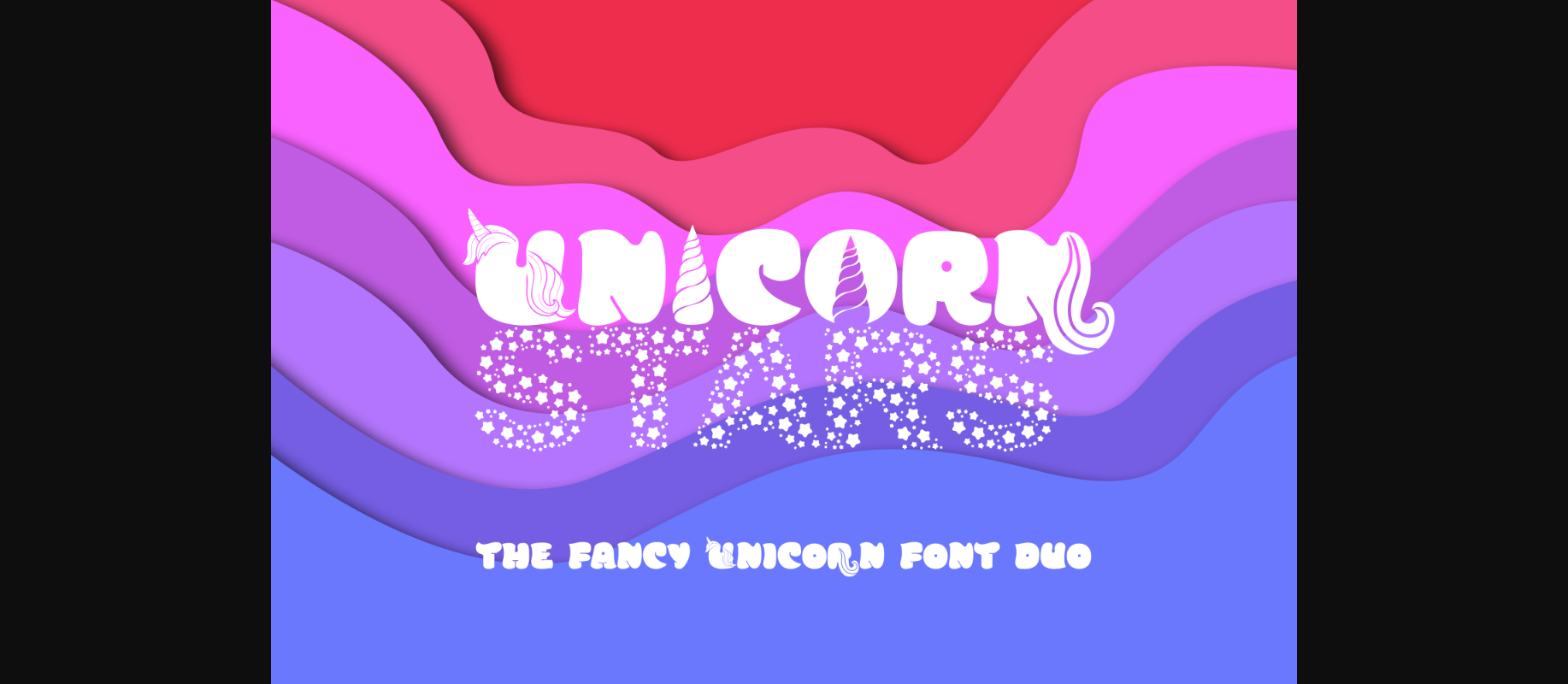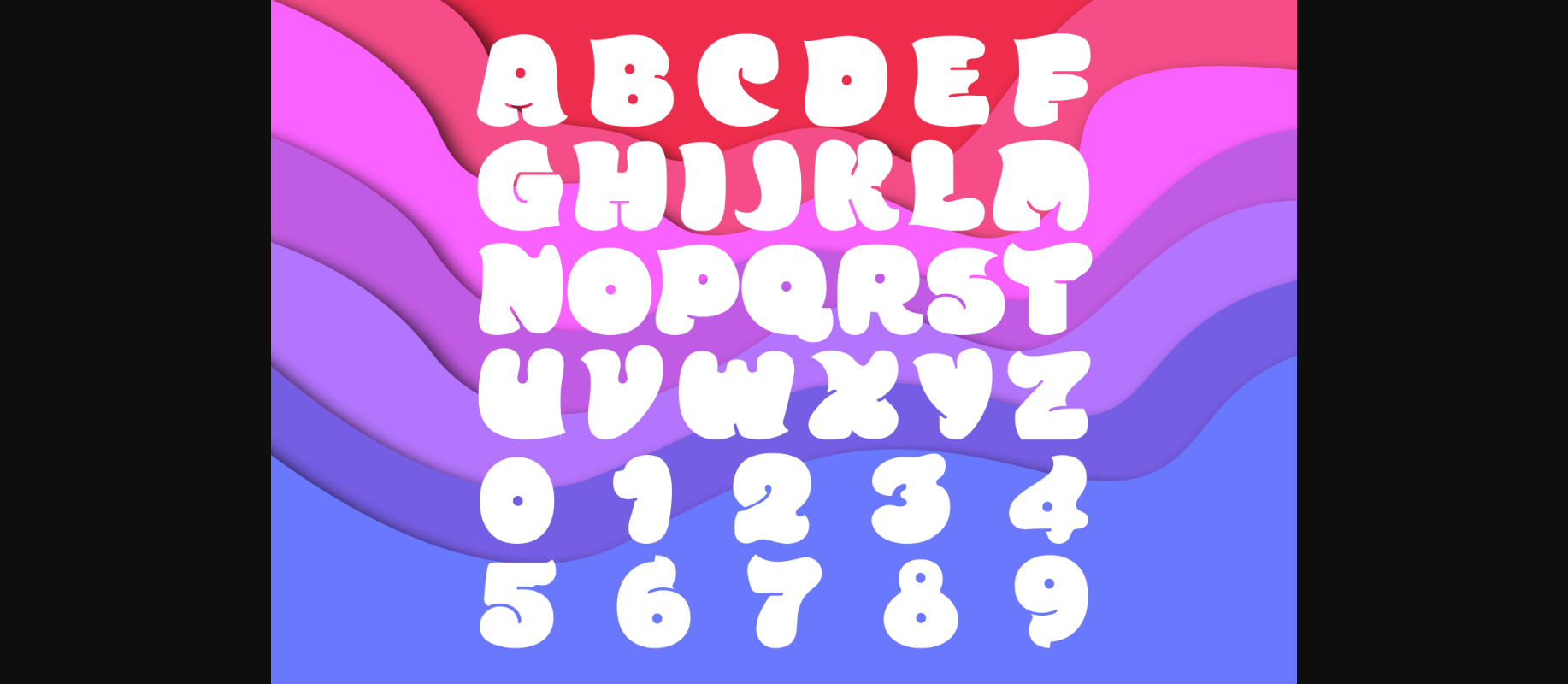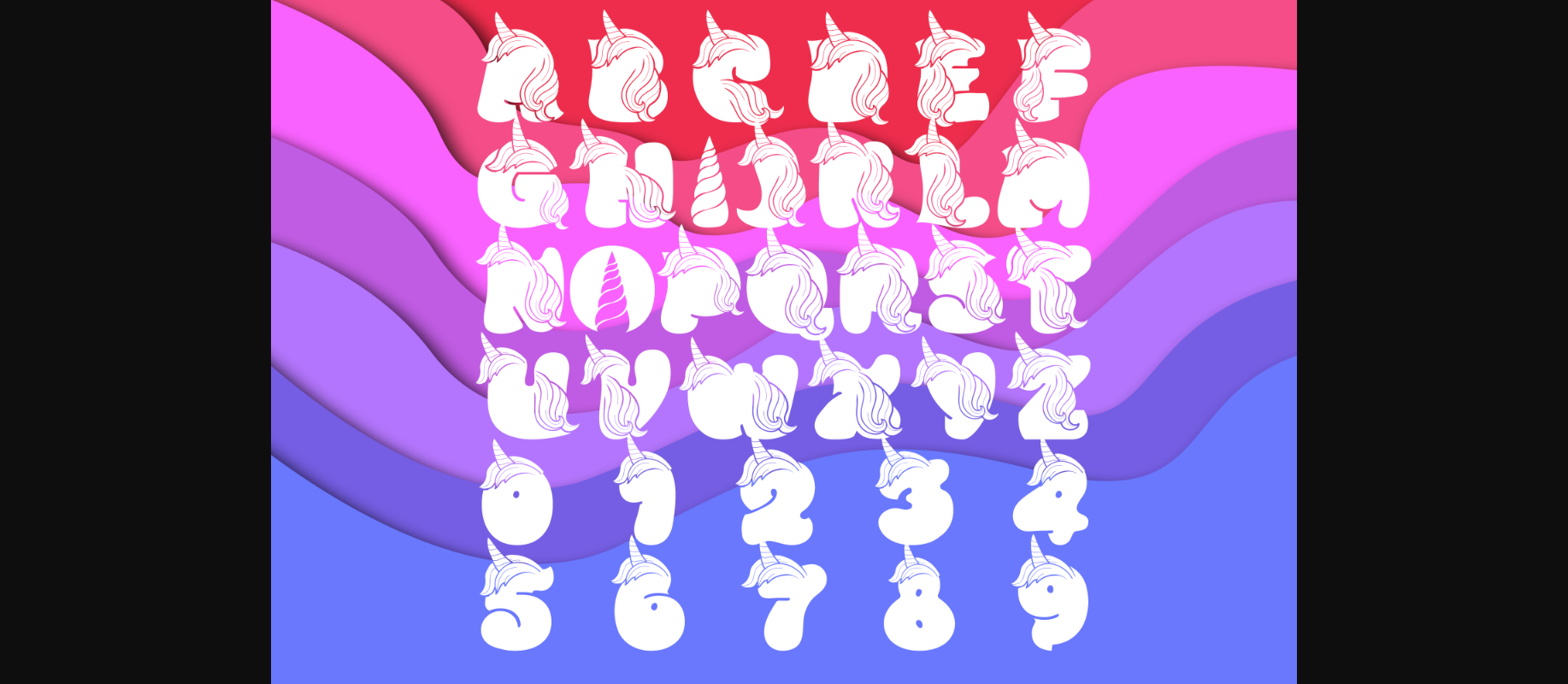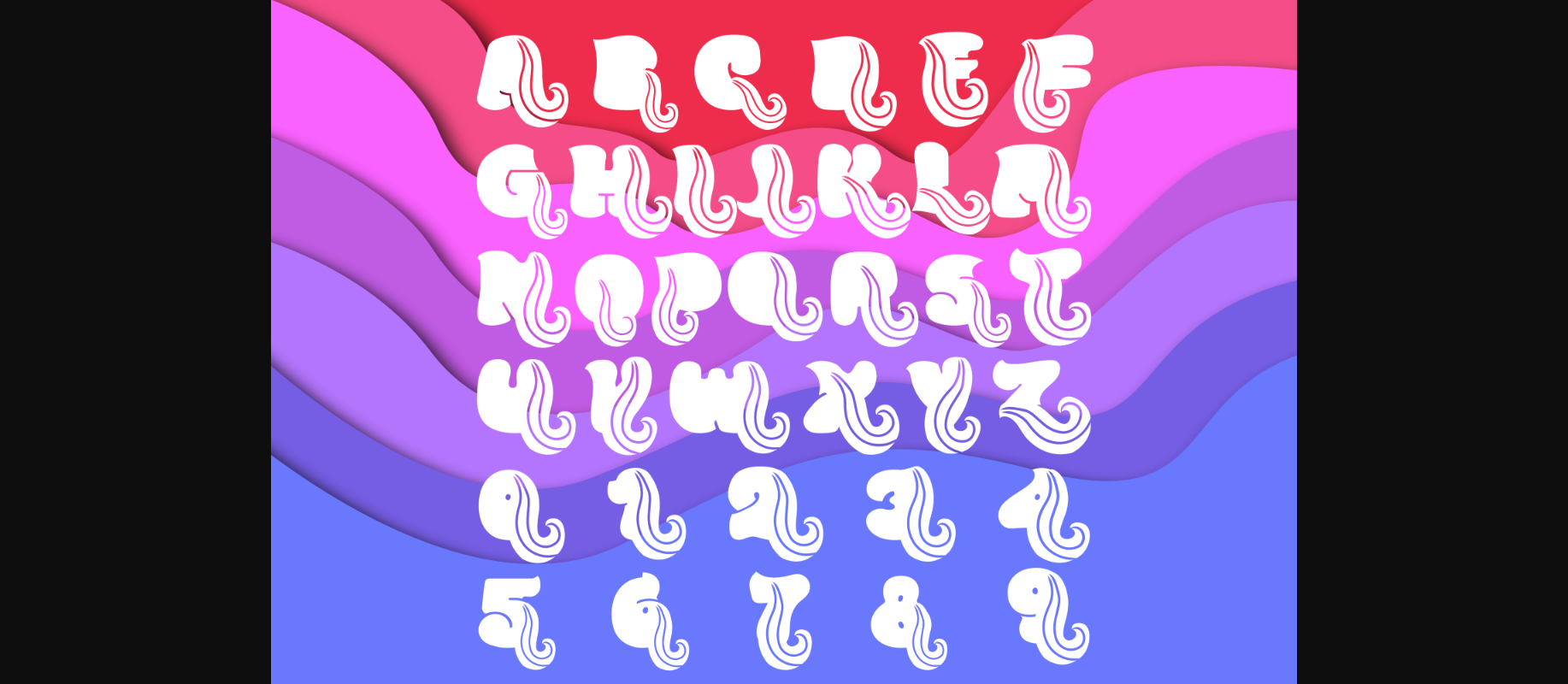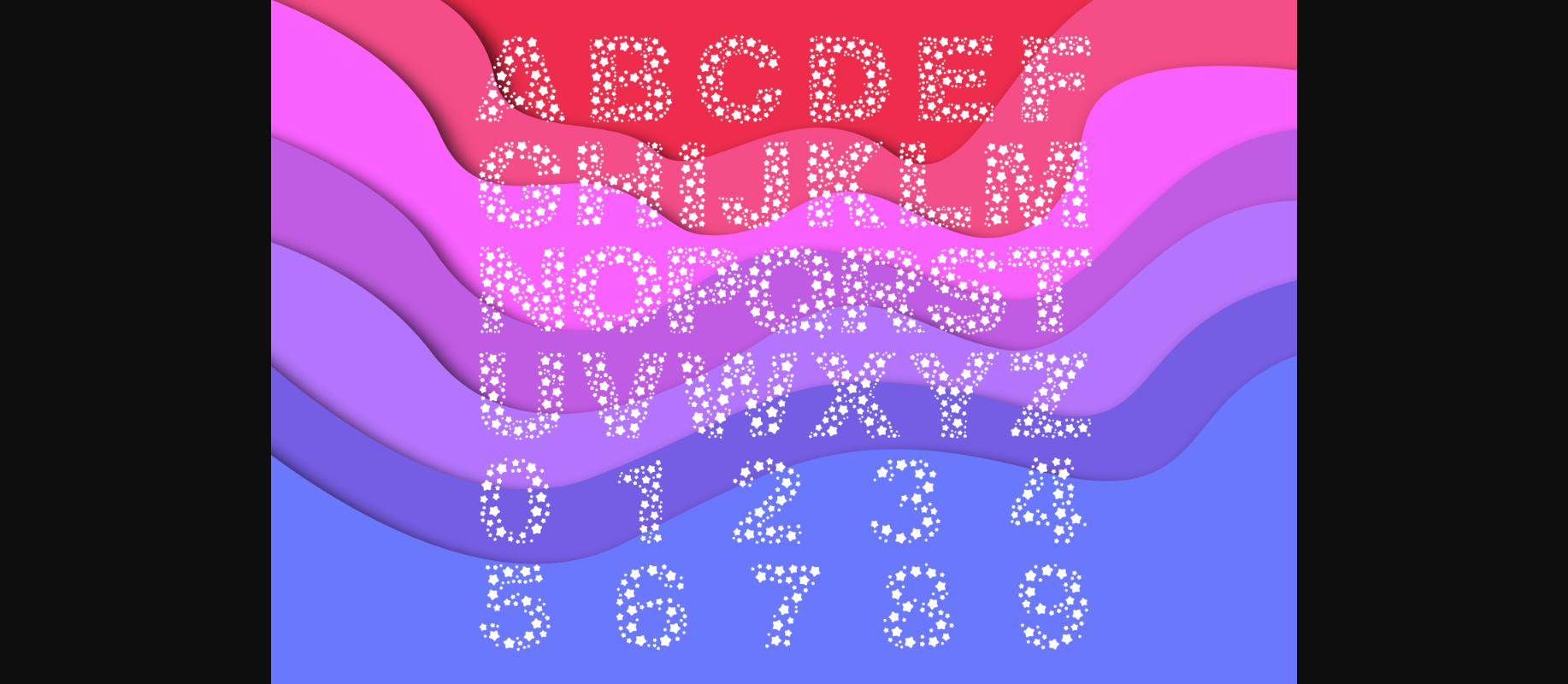
Unicorn Stars Duo Font
About Unicorn Stars Duo Font
Unicorn Stars Font Duo is an incredibly cool, friendly and thick lettered duo font (display and decorative). Whether you use it for cartoon-related designs, children’s games, or just any creation that requires a lovely touch, this font will be an amazing choice.